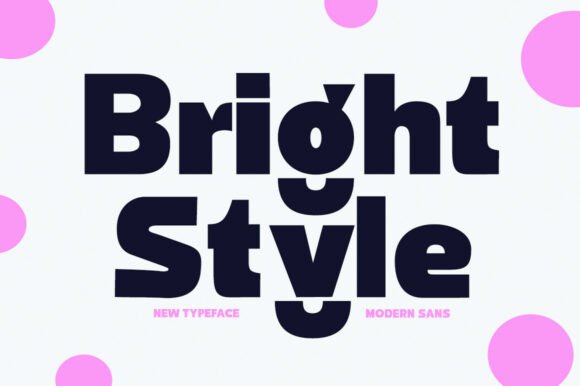
Discover the Power of Bright Style: A Modern Bold Sans Typeface
First Impressions: What I Love About Bright Style
Bright Style is more than just a font – it’s a statement piece. Here are the things that make it stand out:
- ✨ Confidence and Clarity: Bright Style exudes confidence and clarity, making it perfect for logos, headlines, and posters.
- ✅ Geometric Precision and Smooth Curves: The font combines geometric precision with smooth curves, resulting in a clean yet powerful look.
- 💡 Multilingual Support: Bright Style offers full multilingual support, numbers, and punctuation, making it versatile for various design projects.
- 📈 Flexibility: Available in Regular and Italic, Bright Style provides flexibility for pairing and variation.
The Not-So-Perfect: A Few Quirks
No font is perfect, and Bright Style has a few minor limitations:
- 🤔 Limited Font Weights: Bright Style is currently available in Regular and Italic, which might limit its use for certain design projects that require more font weights.
- ⚠️ Glyphs and OpenType Features: While Bright Style supports OpenType features, some users might find the glyphs and stylistic alternates a bit limited.
The Story Behind Bright Style
Bright Style was designed with the goal of creating a bold, modern sans-serif font that would inspire creativity and confidence. The designer, inspired by the geometric shapes and clean lines of modern architecture, aimed to craft a font that would be both visually striking and highly legible. The result is a font that radiates energy and sophistication, perfect for designers looking to make a statement.
| What is Bright Style? | Bright Style is a modern bold sans-serif typeface designed for confidence, clarity, and creative energy. |
| Is Bright Style suitable for body text? | While Bright Style is designed for headlines and display text, it can be used for body text in certain design projects. However, its bold nature may not be suitable for extended reading. |